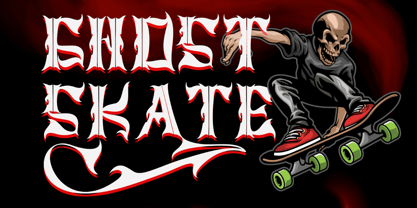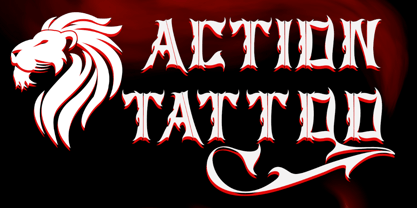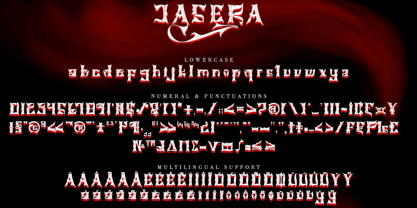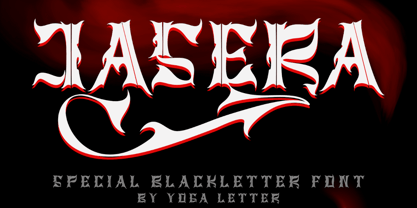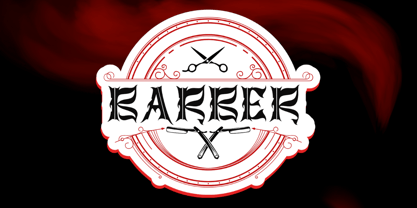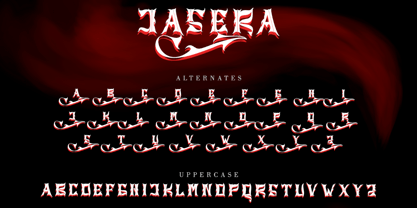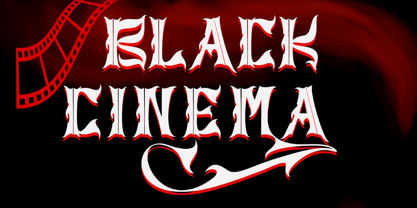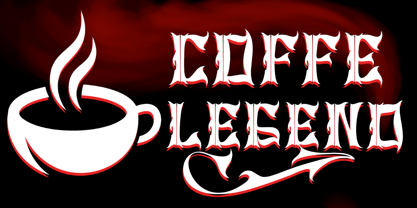
Jasera
by Yoga Letter
The Jasera Font Family was designed by Isroni Yoga Prasetya and published by Yoga Letter. Jasera contains 1 styles.
"Jasera" is a professional and elegant blackletter font. This font is made by professional hands. Equipped with uppercase, lowercase, numerals, alternates, multilingual support and punctuations. Very suitable for tattoos, stickers, movie titles, logos, cinema, horror, barber, cafe, business branding and others.